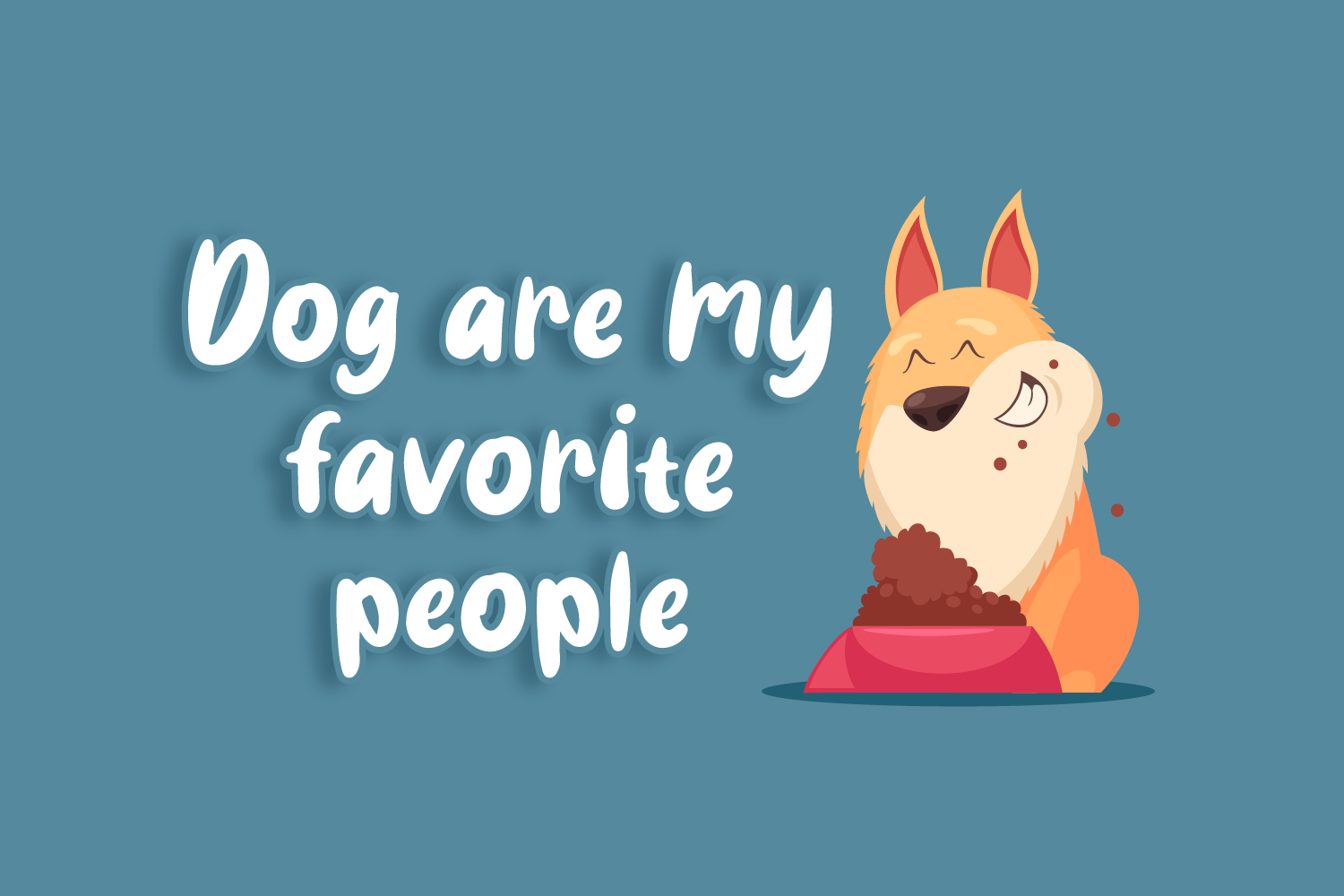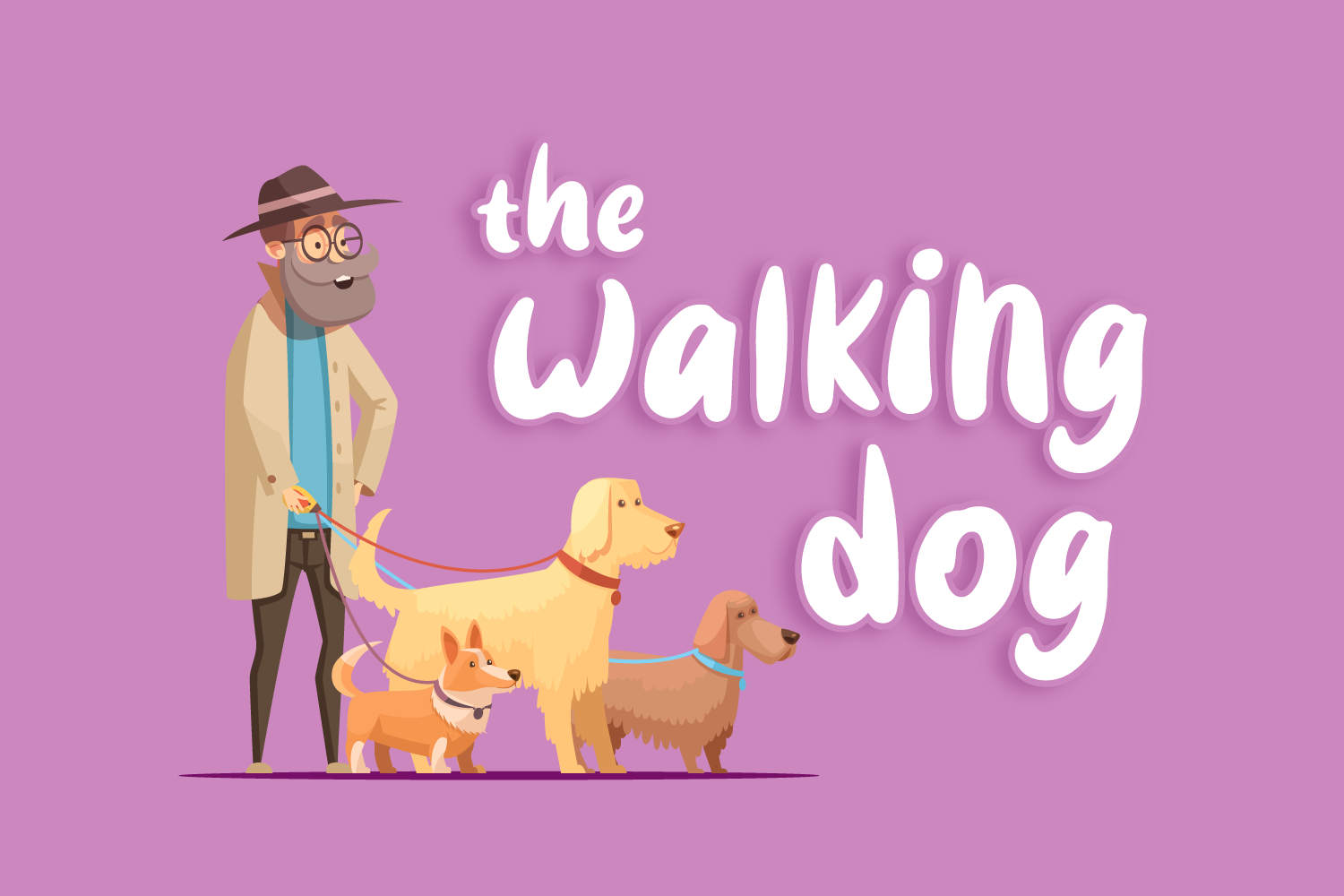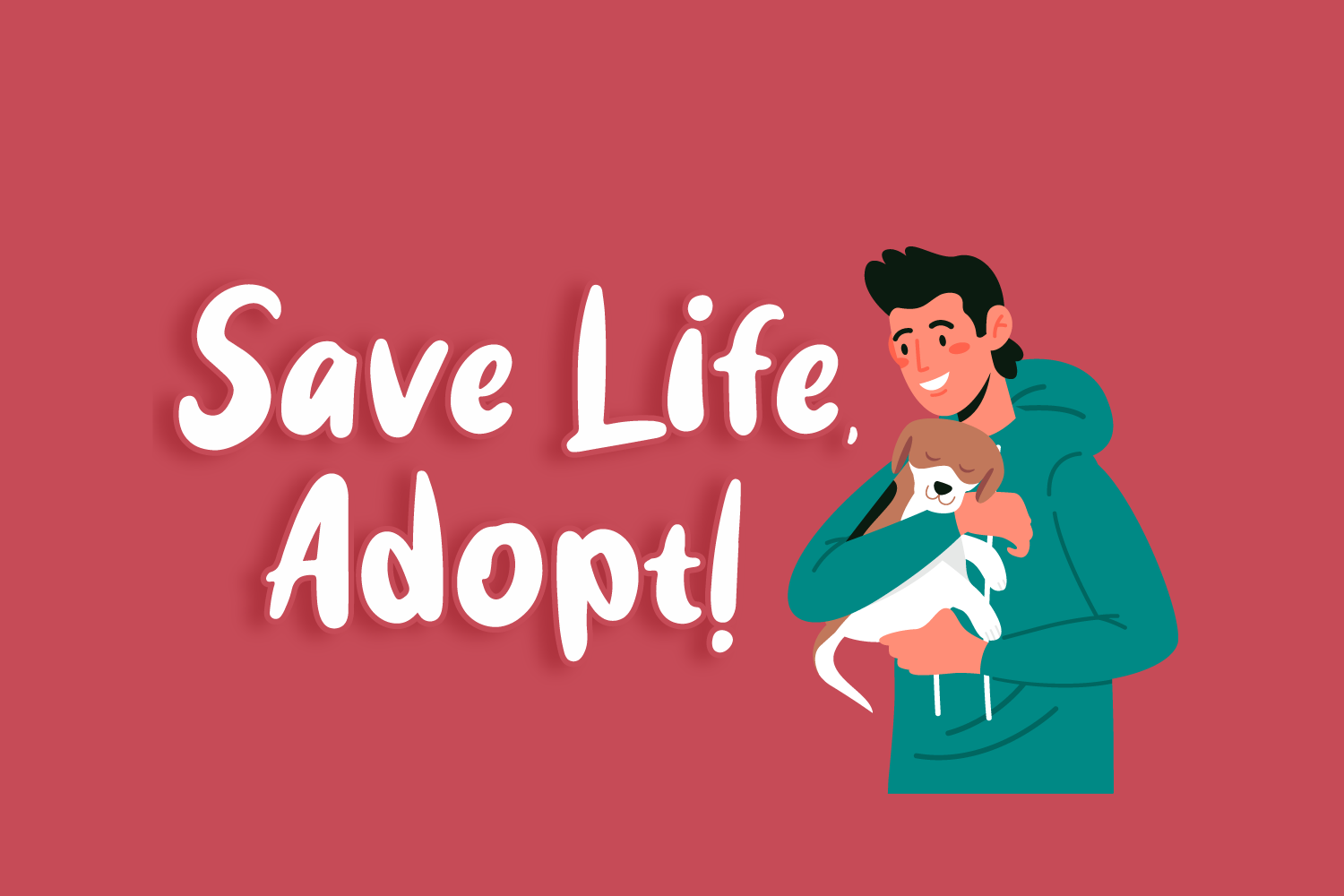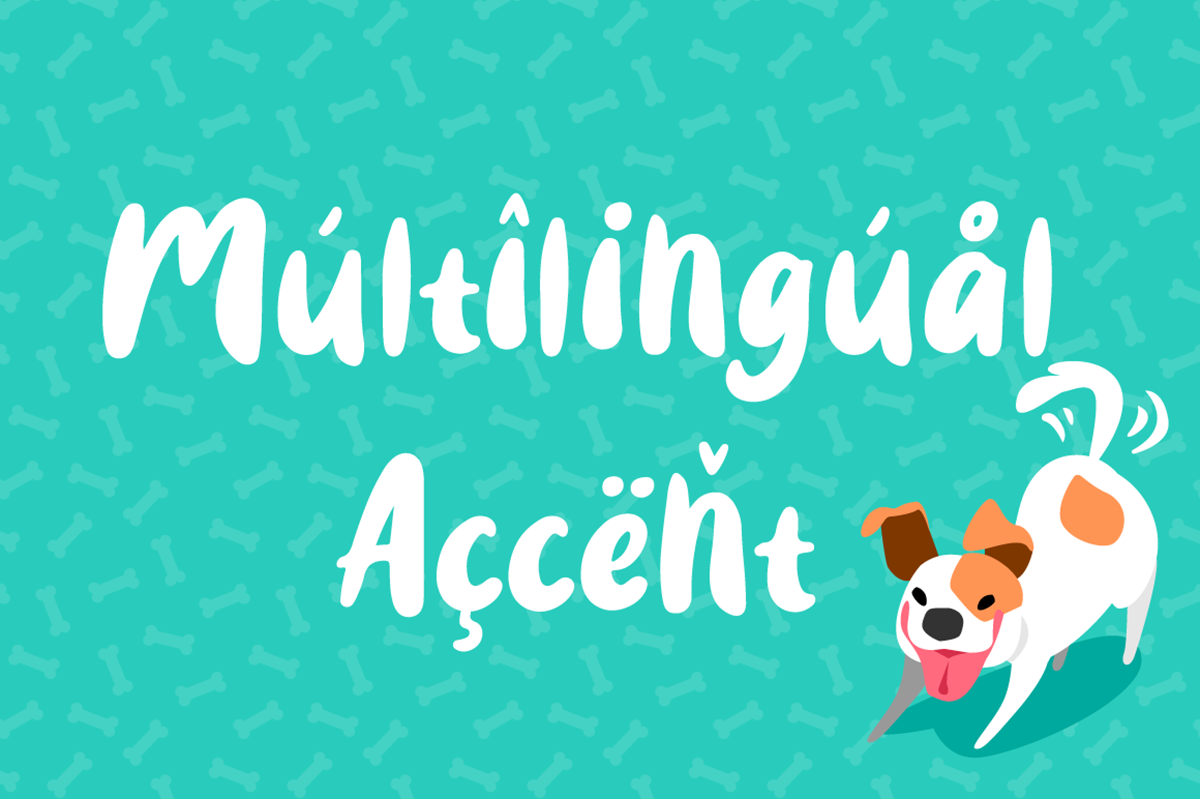
Good Boy Free Font
Good Boy Free Font is a display font inspired by the connection about humans and dogs. This free typeface was designed by the talented Attype Studio. If you like it don’t forget to check out the full version.